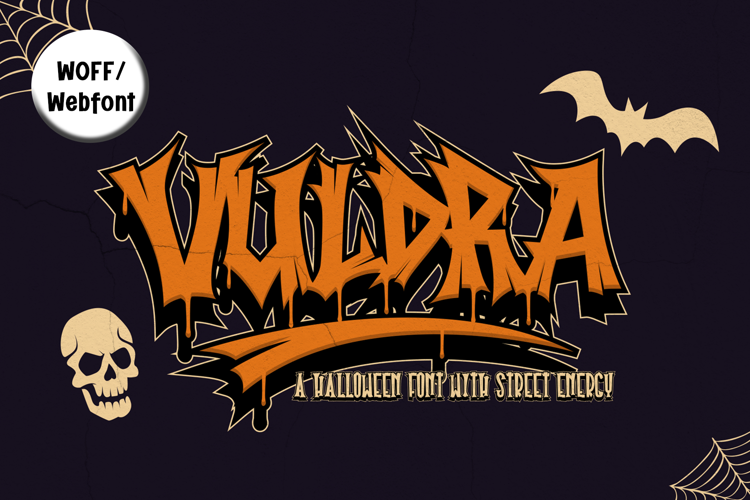
Vuldra | Halloween Graffiti Webfont
Designed for modern digital use, Vuldra is a Halloween graffiti creation that captures both spooky vibes and street culture authenticity. Available in Regular/Clean and Dripping styles, it adapts easily to websites, online ads, and digital branding. What makes it truly unique is the wild graffiti strokes with a wood texture effect, giving each character a raw and organic edge that looks powerful on screens. Perfect for seasonal Halloween campaigns, horror movie promotions, game titles, and social media visuals, while still flexible enough for urban branding and edgy web design. The dripping style adds drama and horror, while the clean style keeps text clear and impactful for professional layouts. With its bold street-inspired look and creepy seasonal mood, Vuldra helps digital creators craft unforgettable visuals. Included files: WOFF.